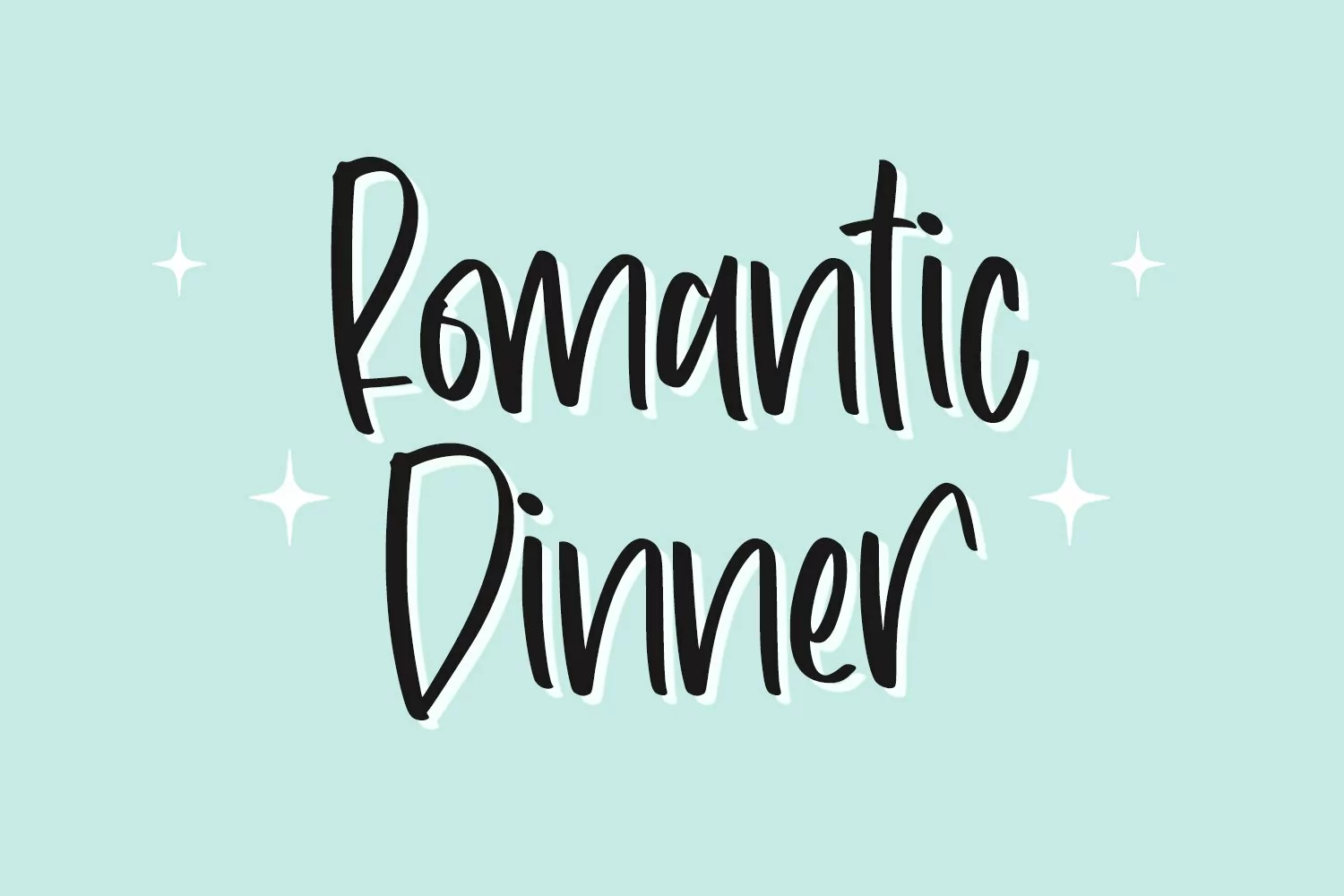
WardrobeDelightful - Beauty Handwritten Font that contain lowercase, uppercase, symbol, and also support multi language. There’s a lot ligatures in this font. This Font also comes with ligatures, alternates and many more. this font suitable for fashion, branding, catalog and other design what you want.
Wardrobe Delightful